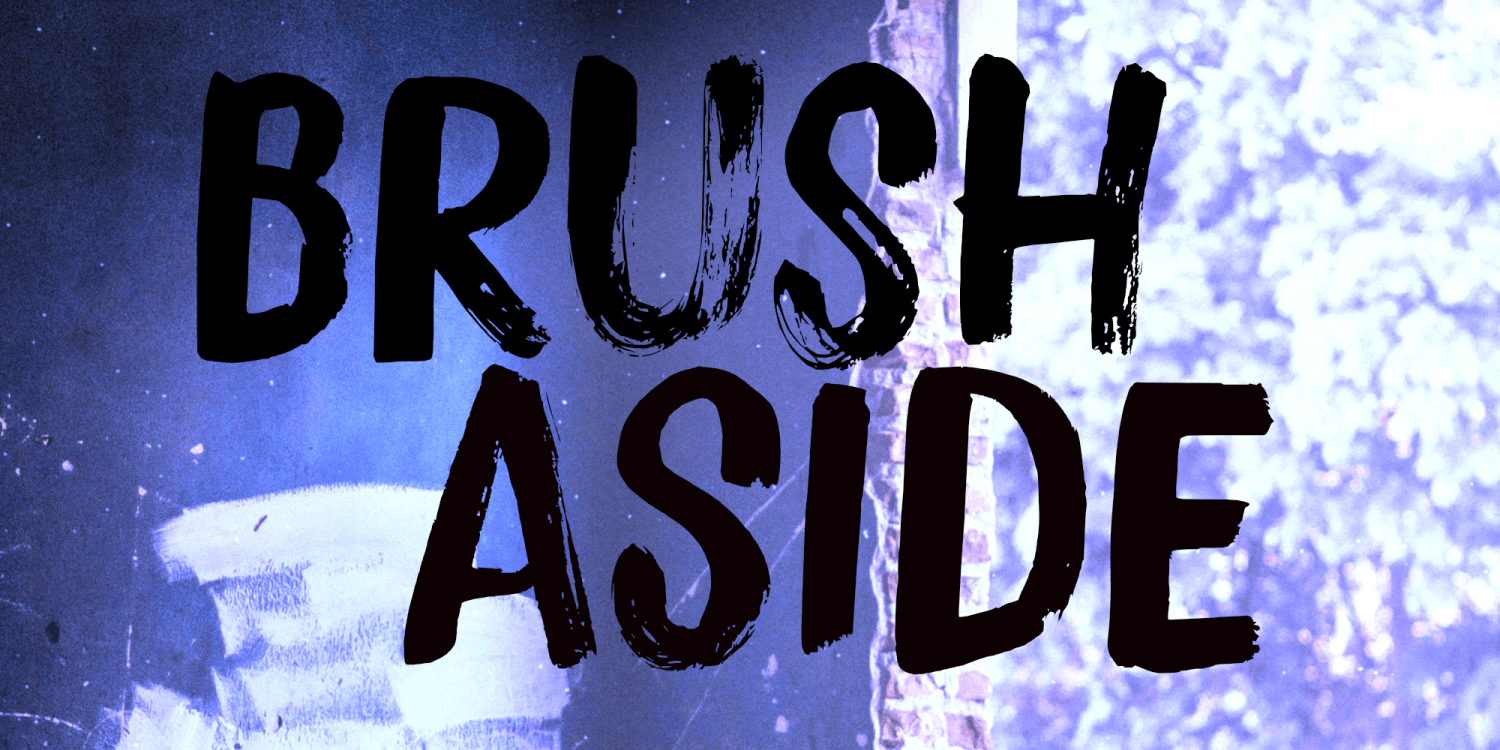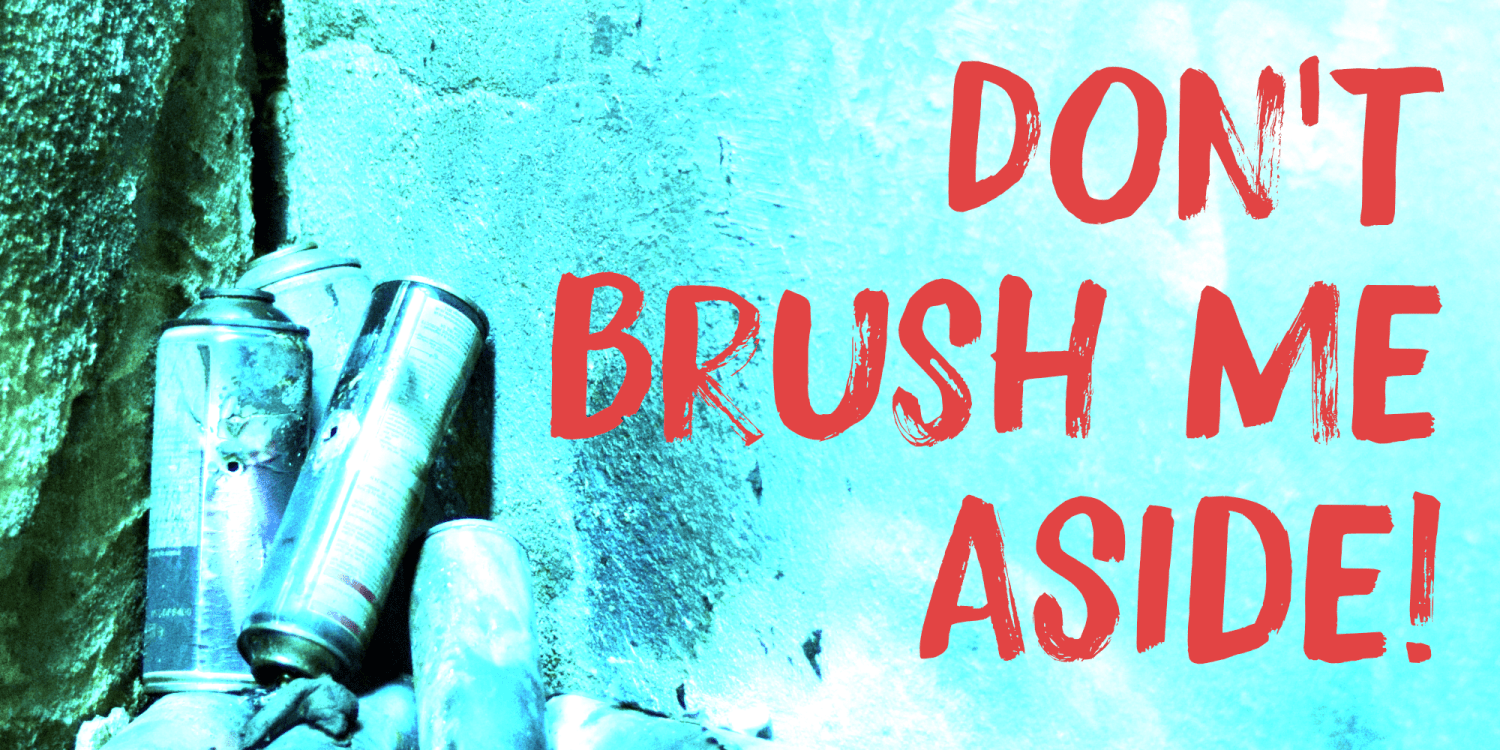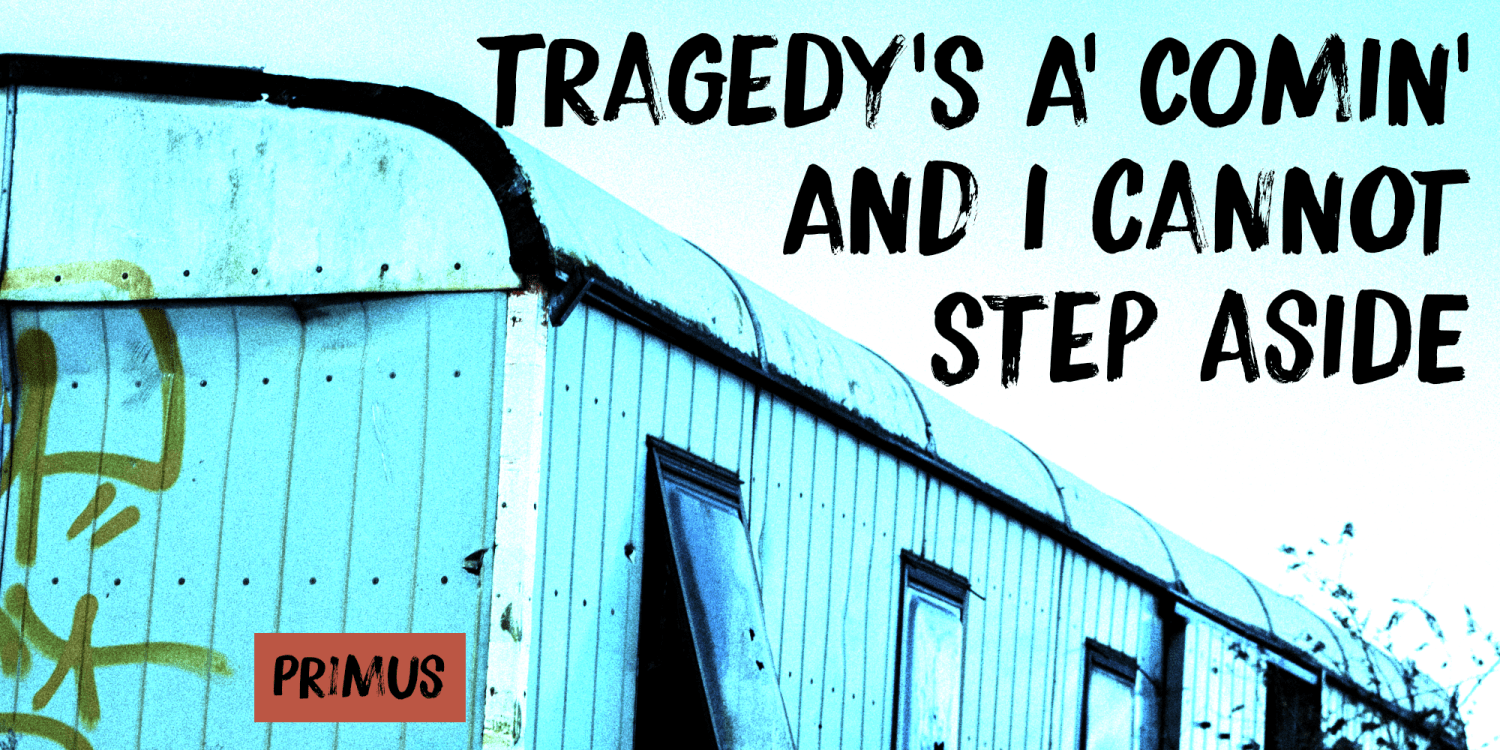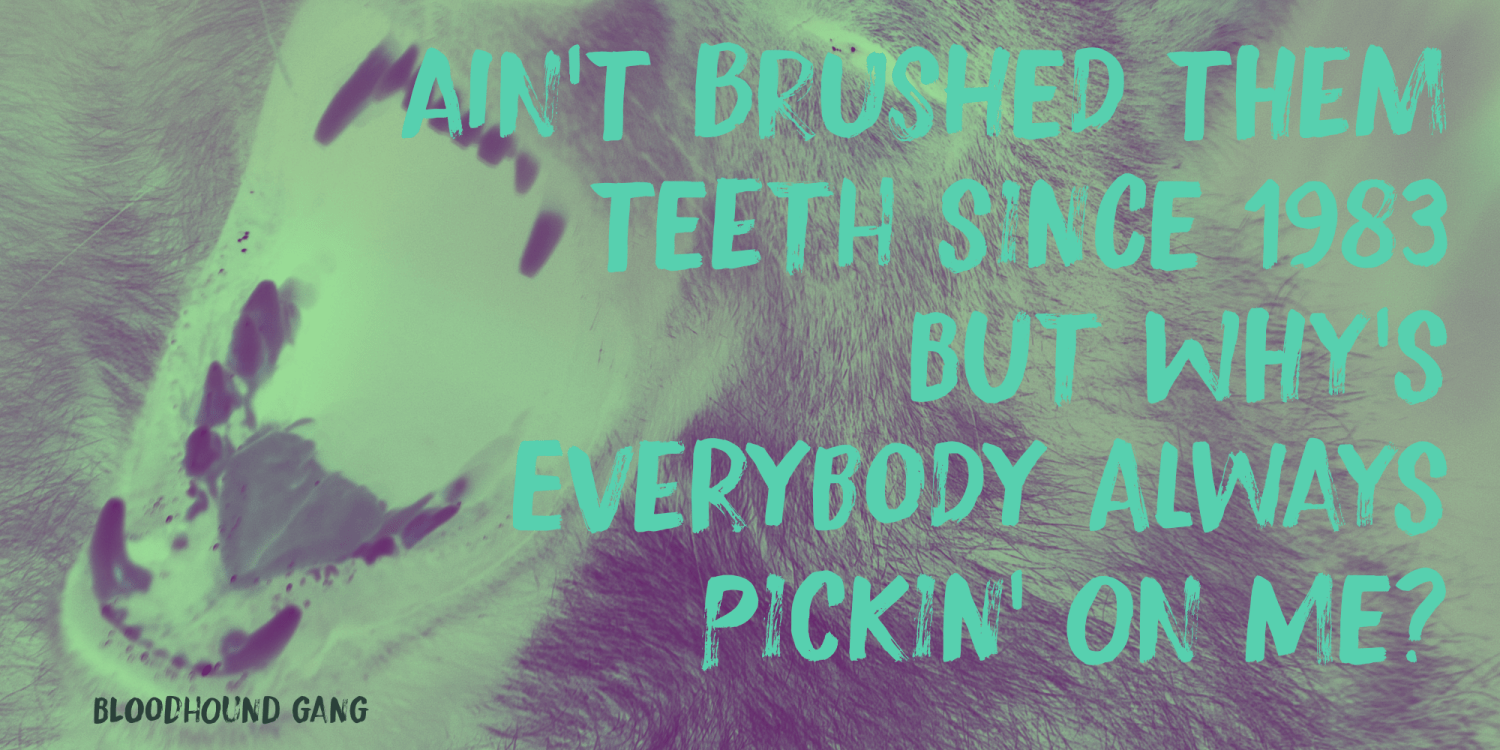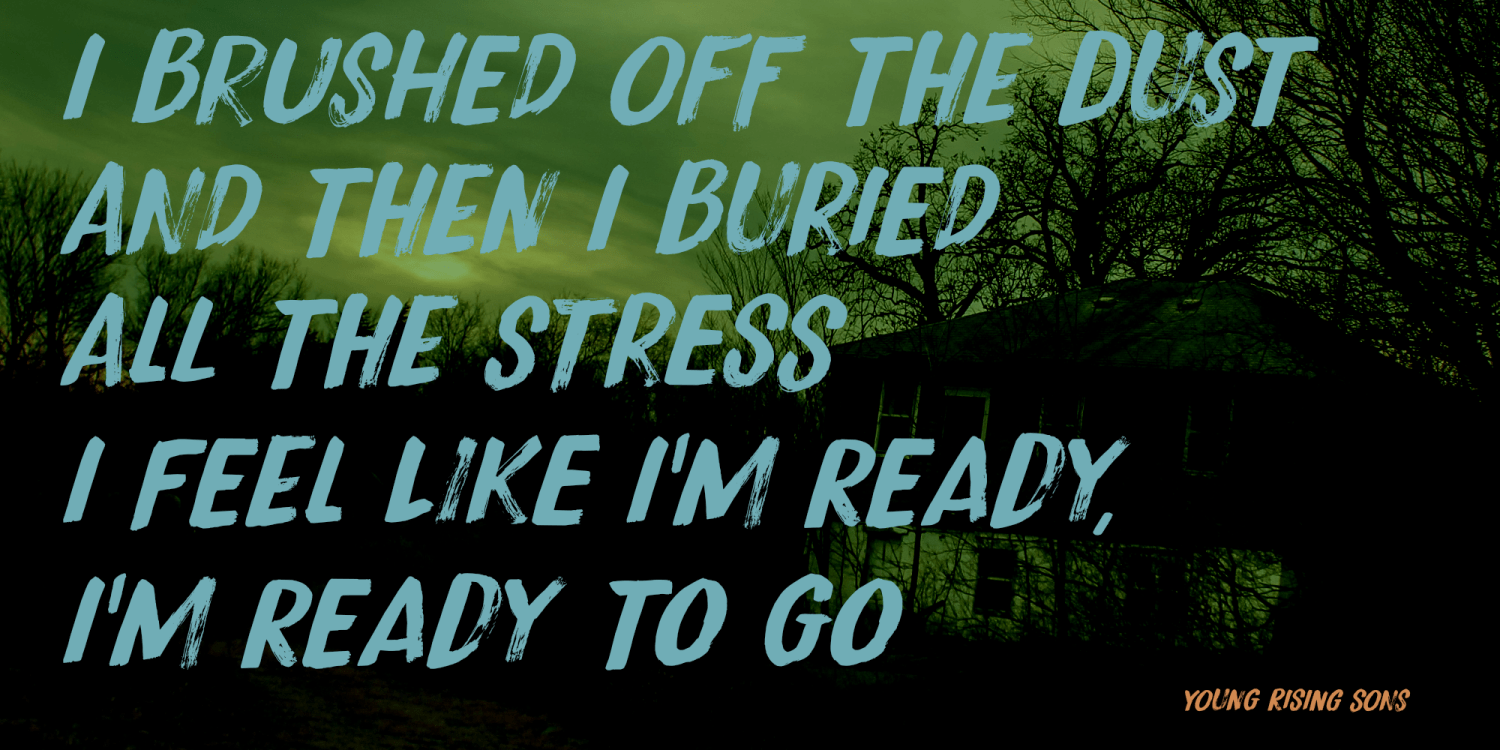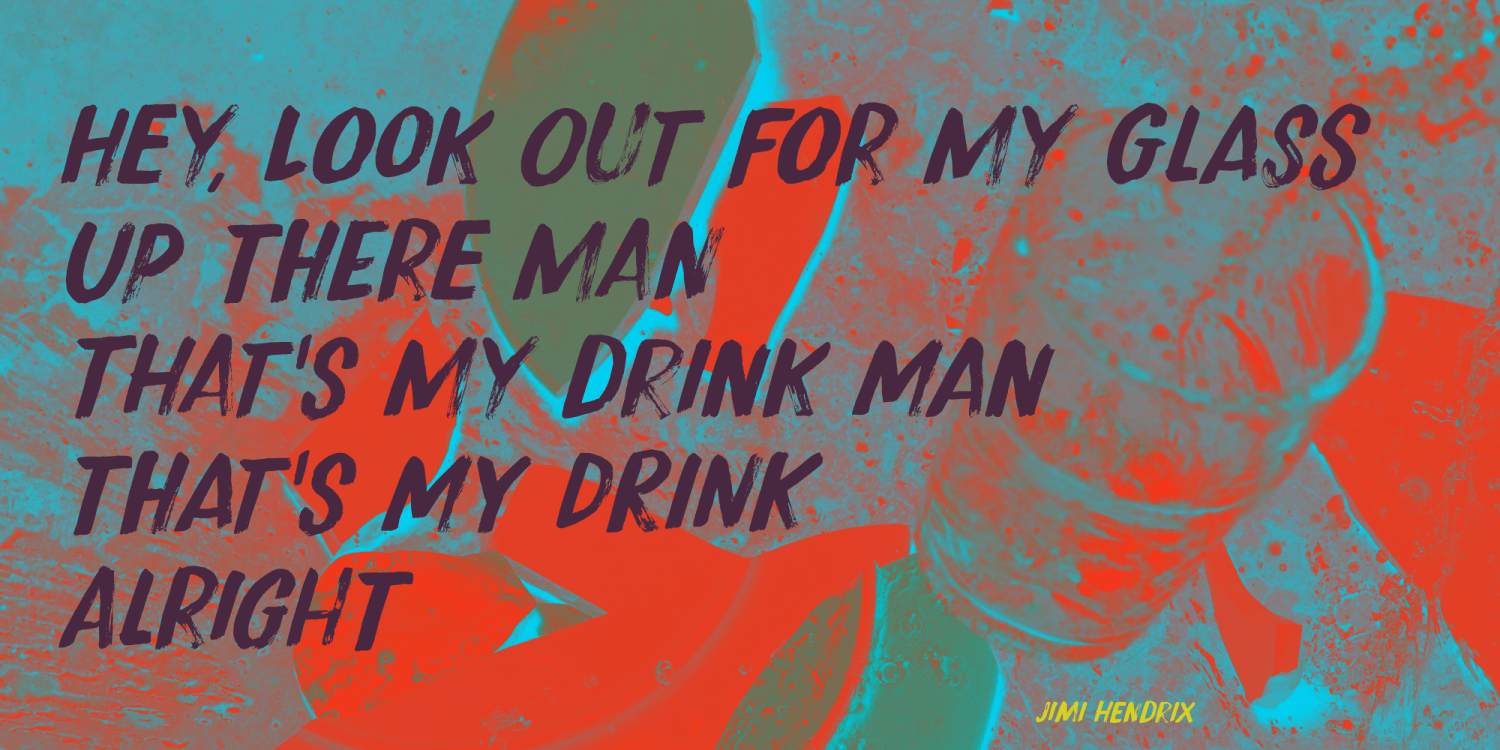
Brush Aside
I make quite a variety of fonts, but brush fonts are my absolute favourite. When I dip my brushes in that ink, I feel like I am really creating something special!
Brush Aside is such a brush font. Let’s say I was aiming for a different look, but this is what I put on paper at the end of the day.
Brush Aside is a display font. It comes with extensive language support and two sets of auto-rotating glyphs.